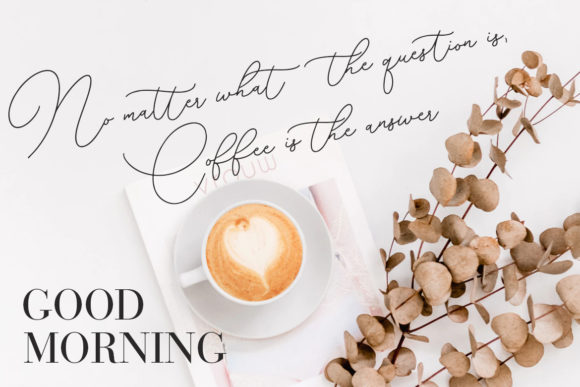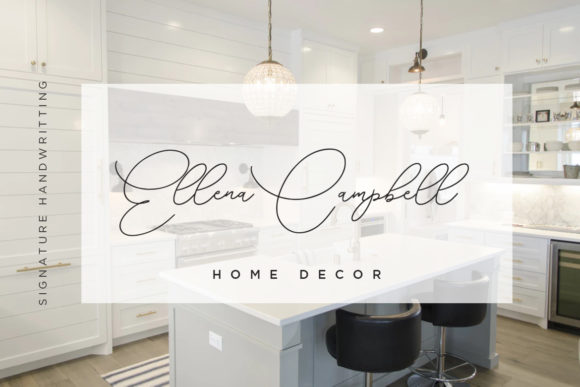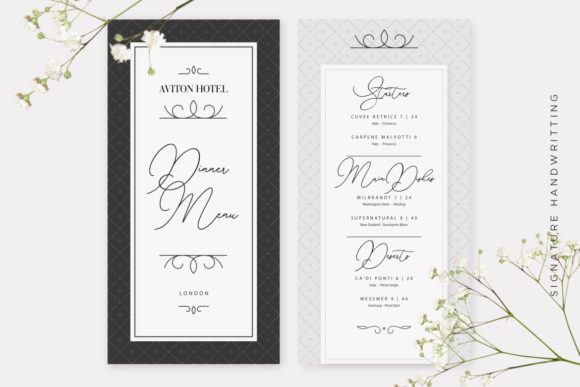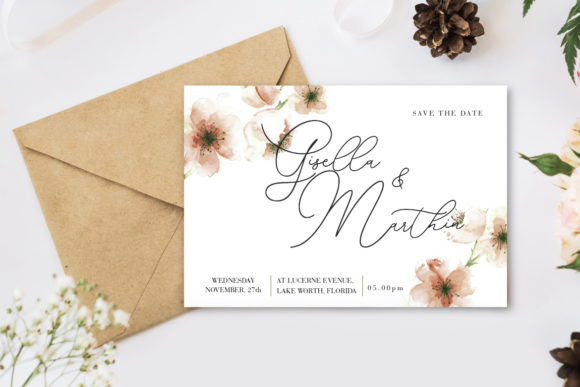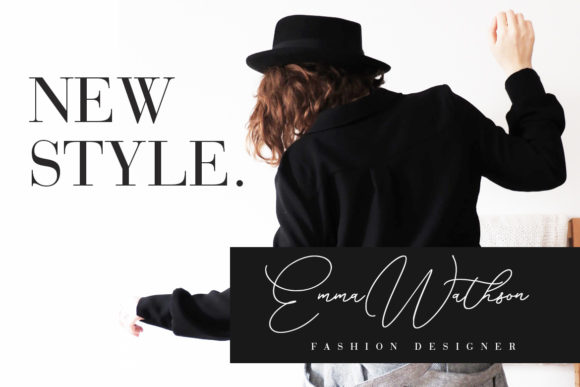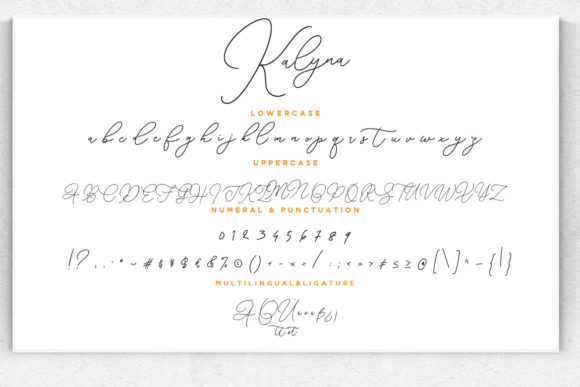
Introduction to Kalyna Font
Have you ever been in the middle of a creative project, pouring your heart and soul into it, only to feel like something’s missing? That’s when I discovered the Kalyna Font, and my designs suddenly took on a new level of charm and sophistication.
As a designer, I know how crucial it is to have a reliable font that can elevate your work and make it stand out. Kalyna Font is more than just a pretty face – it’s a versatile tool that can add a touch of elegance to any project, from wedding invitations to social media graphics.
Key Features of Kalyna Font
- Designed to be highly legible, with clear and crisp characters, making it suitable for both digital and print media.
- High-resolution font, suitable for use at various sizes, from small text to large headings, without compromising on quality.
Honest Review: Kalyna Font
I recently had the chance to experiment with the Kalyna Font, and I must say it’s a unique and fascinating addition to any design project. The font’s high quality and crisp lines make it perfect for a creative project that requires a touch of elegance.
- ⚠️ The font’s unique design may not be suitable for all projects, particularly those that require a more traditional or conservative look.
Overall, I’m impressed with the Kalyna Font’s unique design and high quality. It’s definitely a great addition to any designer’s toolkit, and I’d highly recommend it for any creative project that requires a touch of sophistication.
Common Use Cases for Kalyna Font
The Kalyna Font is commonly used in creative projects such as: Designing business cards, creating social media graphics, and making presentations. It is also used in personal projects such as creating art and writing stories.